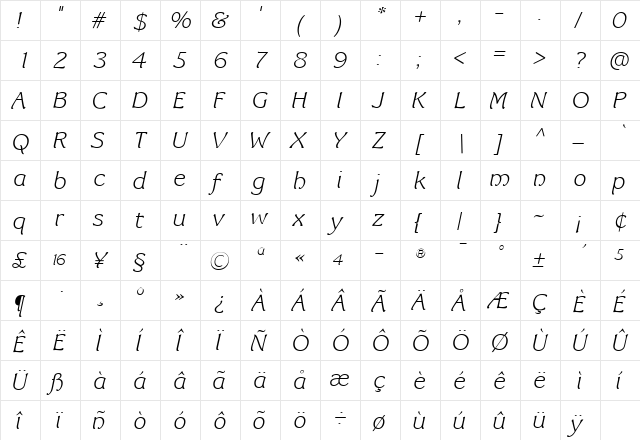
TFBrynMawr Light
| Year | 1980 |
Design Context for TFBrynMawr Typeface
TFBrynMawr offers clean, dependable letterforms without strong stylistic allegiance, making it a practical choice for designers who need flexibility. The delicate stroke weight brings airiness and refinement to layouts.